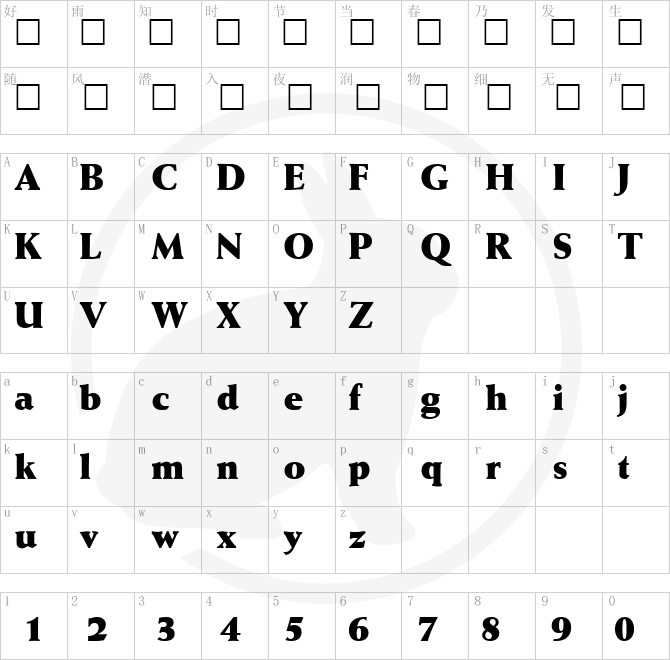
- Font Name:WaizeExtrabold
- Full Name:WaizeExtrabold-Regular
WaizeExtrabold-Regular.ttf is a very beautiful artistic font, WaizeExtrabold-Regular.ttf is widely used in the design and printing of various books and pictures,WaizeExtrabold-Regular.ttf has a strong visual impact,WaizeExtrabold-Regular.ttf is a commonly used font in newspapers, magazines and books, and is used in posters, e-commerce Poster design, store design, logo design, font design and other fields.WaizeExtrabold-Regular.